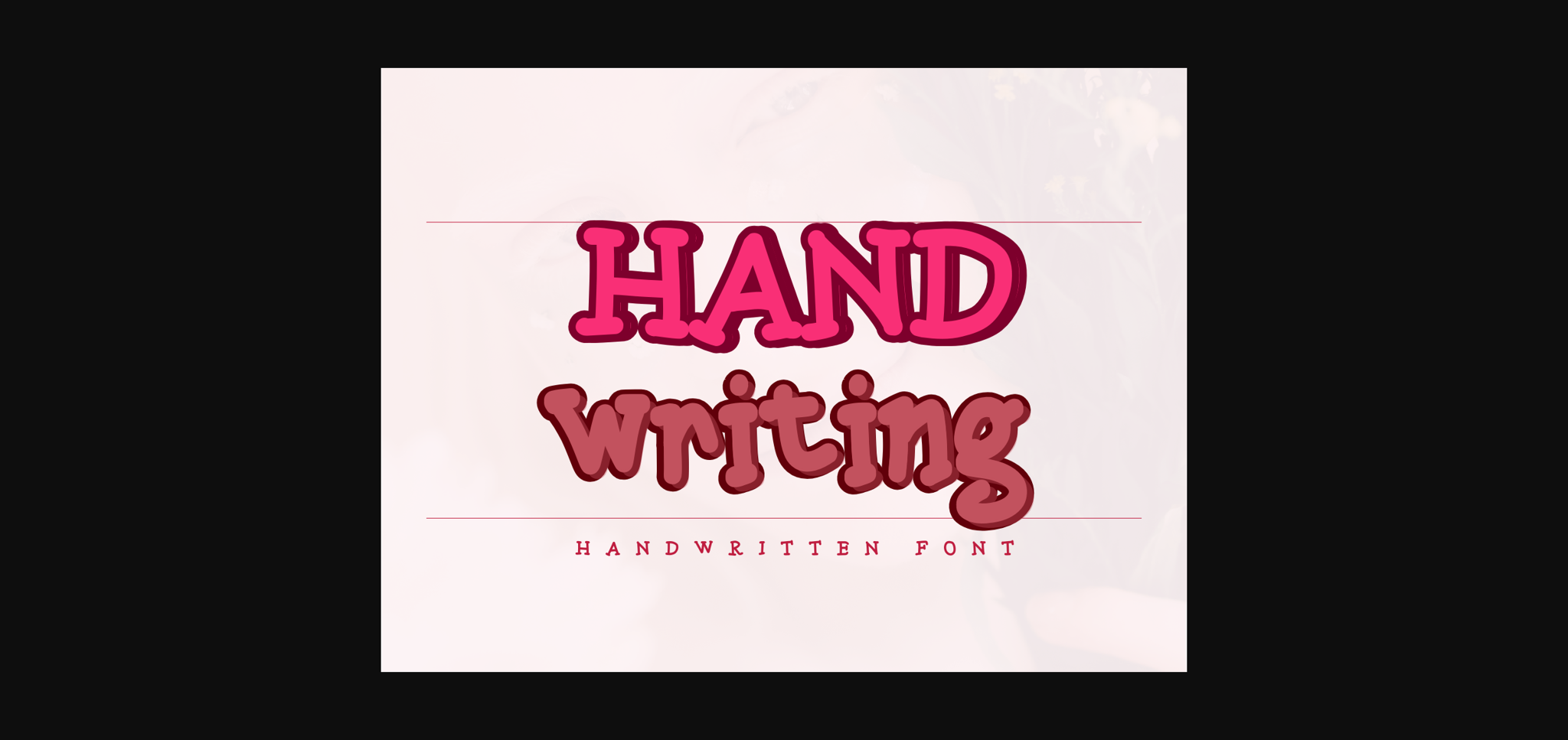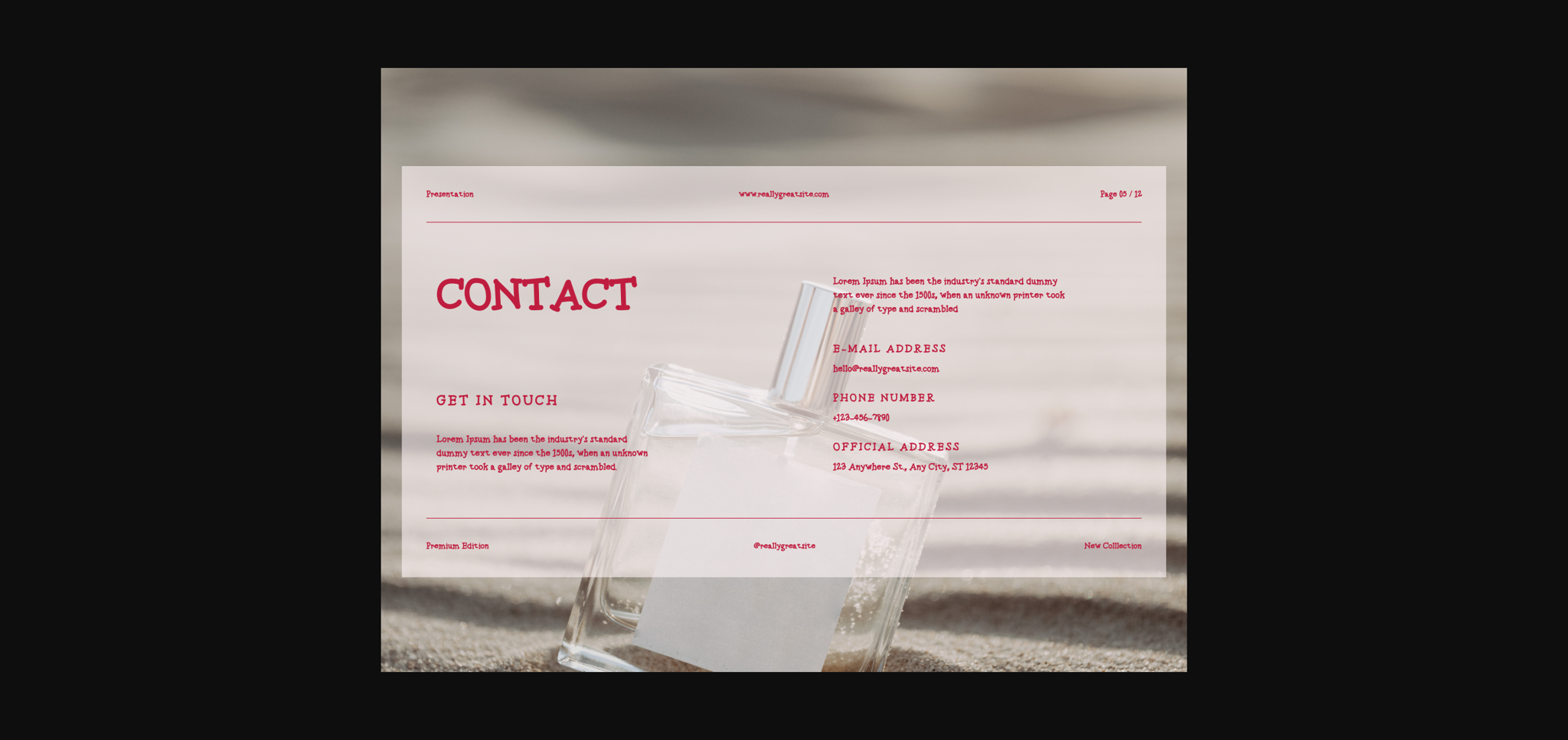
About Handwriting Font
Handwriting Font is a fun and friendly handwritten font. Use it to turn any design idea into a true standout. Get inspired by its unique charm and create lovely designs.